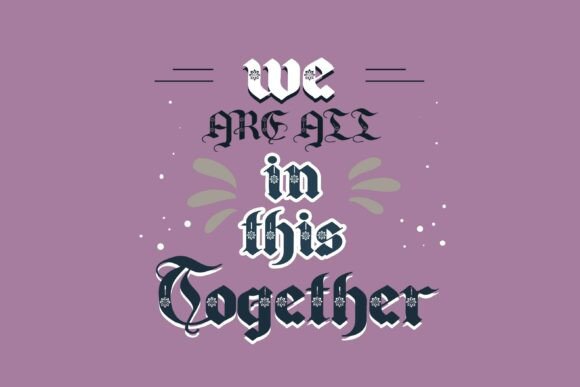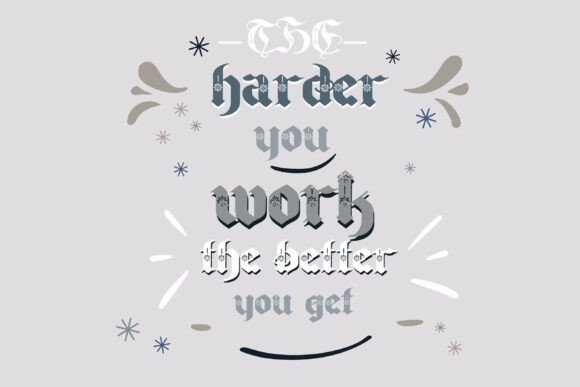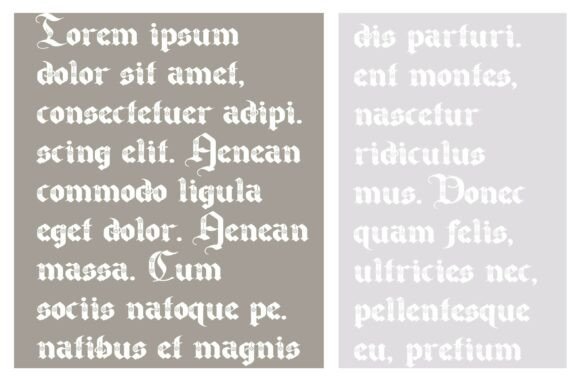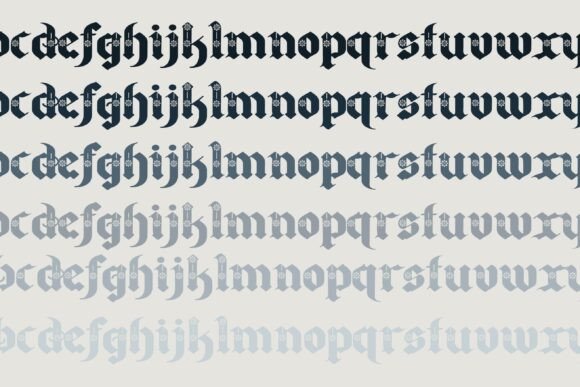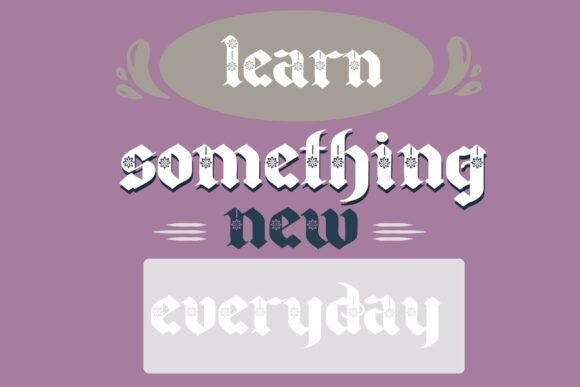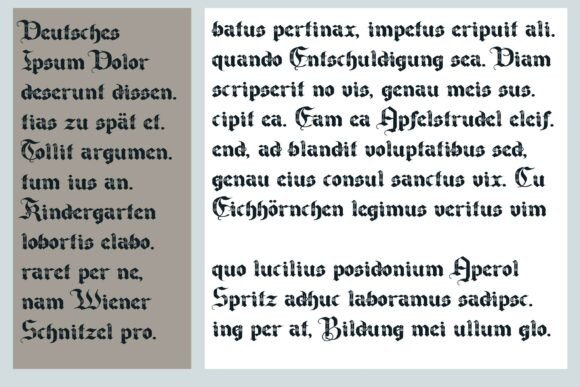
Canton Bloom: Elevate Your Designs with a Formal Floral Font
In the world of typography, a font can make or break the aesthetic of a design. For those seeking to infuse their creations with high-end traditional charm, Canton Bloom is a game-changer. This exquisite “formal floral font” is a masterful blend of sophistication and whimsy, making it the perfect choice for designers and crafters looking to add a touch of luxury to their work.
The Essence of Canton Bloom
Canton Bloom is a blackletter-inspired typeface that boasts heavy, calligraphic strokes and razor-sharp terminals, evoking the elegance of traditional formal fonts. What sets it apart, however, is its meticulous detailing. Each character features internal floral “snowflake” motifs, expertly woven into the design to create a sense of intricate beauty. This unique fusion of gothic structure and garden-inspired elegance results in a font that is both prestigious and charming.
Versatility and Application
The versatility of Canton Bloom is one of its most compelling attributes. Its sophisticated yet whimsical nature makes it suitable for a wide range of applications, including:
• High-end boutique branding: Elevate your brand with a font that exudes luxury and refinement.
• Luxury holiday packaging: Add a touch of elegance to your seasonal packaging with a font that embodies tradition and sophistication.
• Editorial titles for heritage magazines: Bring a sense of history and prestige to your magazine titles with Canton Bloom’s classic charm.
• Upscale event stationery: Make your event stationery stand out with a font that combines formal elegance with a hint of whimsy.
Why Choose Canton Bloom?
In a market saturated with generic fonts, Canton Bloom stands out for several reasons:
• Unique Design: The floral motifs within each character offer a level of detail and uniqueness that is hard to find in other fonts.
• Prestige and Whimsy: It strikes the perfect balance between conveying high-end quality and maintaining a playful, soulful charm.
• Versatility: Suitable for a variety of design needs, from branding to editorial and packaging.
Tips for Using Canton Bloom Effectively
To make the most of Canton Bloom, consider the following tips:
• Pair with Simplicity: Let Canton Bloom be the focal point by pairing it with simpler fonts for body text.
• Experiment with Colors: While traditional black or metallic colors enhance its luxurious feel, don’t be afraid to experiment with rich jewel tones or soft pastels to match your brand’s aesthetic.
• Adjust Size and Weight: Play with different sizes and weights to ensure Canton Bloom complements your design without overpowering it.
Canton Bloom is more than just a font – it’s a design statement. With its formal floral elegance, it offers designers and crafters a unique tool to elevate their projects. Whether you’re aiming to create high-end branding, luxurious packaging, or simply want to add a touch of sophistication to your editorial designs, Canton Bloom is the perfect choice. Its blend of traditional charm and whimsical detail ensures that your work will stand out, communicating prestige with a soulful touch.
• Explore and Experiment: Dive into the world of possibilities with Canton Bloom. Try it out in different contexts, from digital designs to print materials.
With Canton Bloom, you’re not just choosing a font – you’re embracing a design philosophy that combines the best of traditional elegance with a modern, whimsical twist. Elevate your designs, communicate prestige, and let your creativity bloom with Canton Bloom.